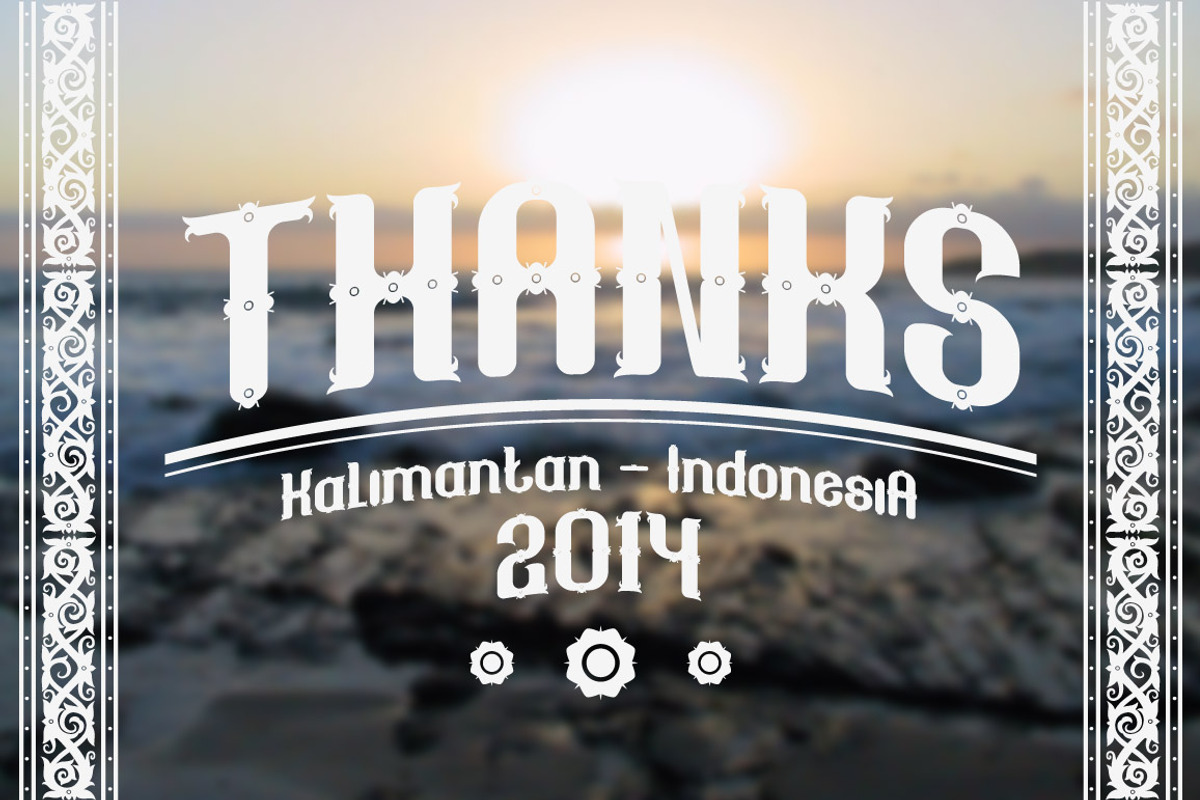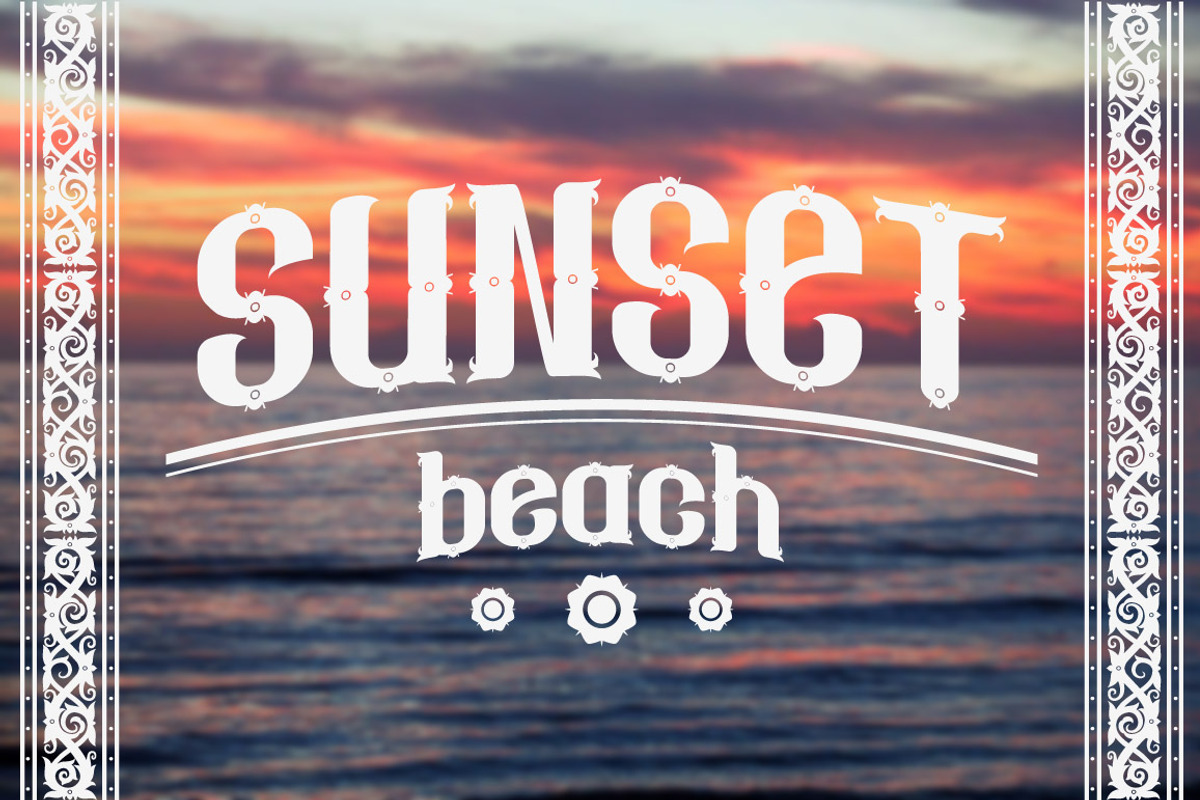
Kalimantan Typeface
Kalimantan Typeface by ghozai studio is a font selected for branding, posters, packaging, typography.
- Kalimantan Italic
- Kalimantan Bold
Why Kalimantan Typeface is worth a look
Kalimantan Typeface by ghozai studio fits naturally into Branding, posters, packaging, typography.